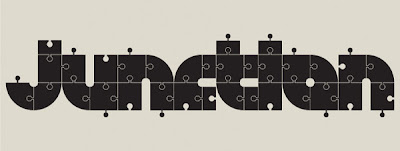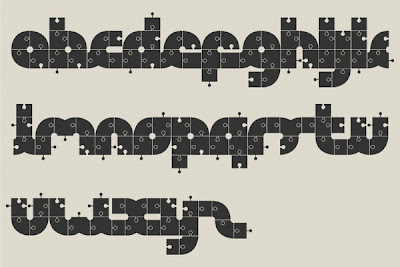
TypeFace Tuesday :: Cello Junctino by Andy Goodridge
Created by Andy Goodridge for Cello Group
About:
By using shapes constructed from a child's toy railway set, I created a simple brand marque and a bespoke typeface. The use of a child's toy puts an element of fun into the brand, allowing users of the opportunity to have fun with it and use their own creativity to make their own shapes and designs. A full alphabet has been developed for this typeface in both display and light versions.